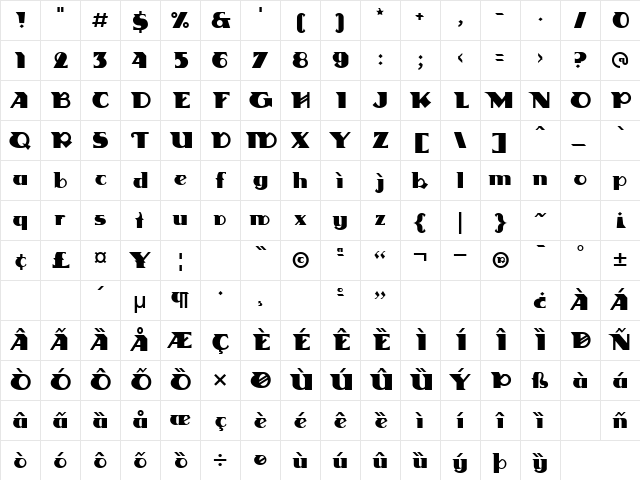
LTDharma Regular Free Font
Design Context for LTDharma
LTDharma is a composed and adaptable typeface that performs quietly and consistently across a wide range of design contexts.